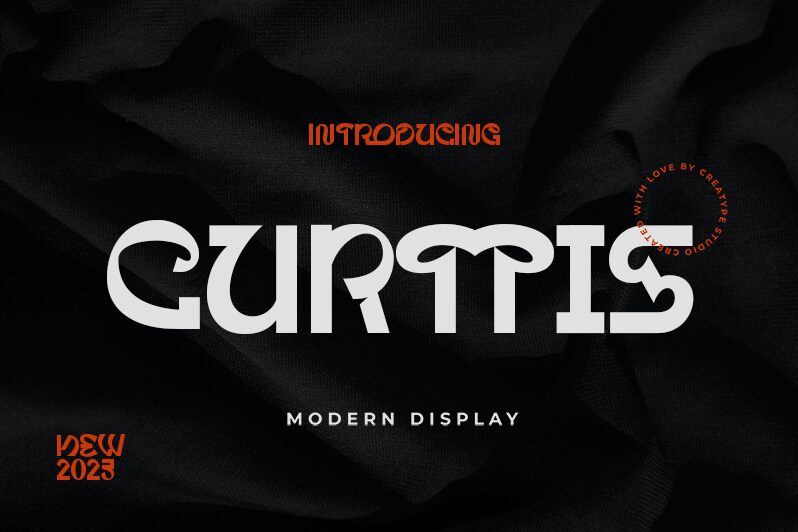
Curtis
Curtis font by Creatype Studio blends retro influences with a modernist, geometric flair. This display typeface embodies an avant-garde aesthetic, making it both striking and memorable. Its structure offers a futuristic touch perfect for forward-thinking designs.
This free display font is suitable for posters, headlines, branding projects, book covers, social media posts, editorial layouts, fashion magazines, movie titles, advertisements, packaging designs, and more.